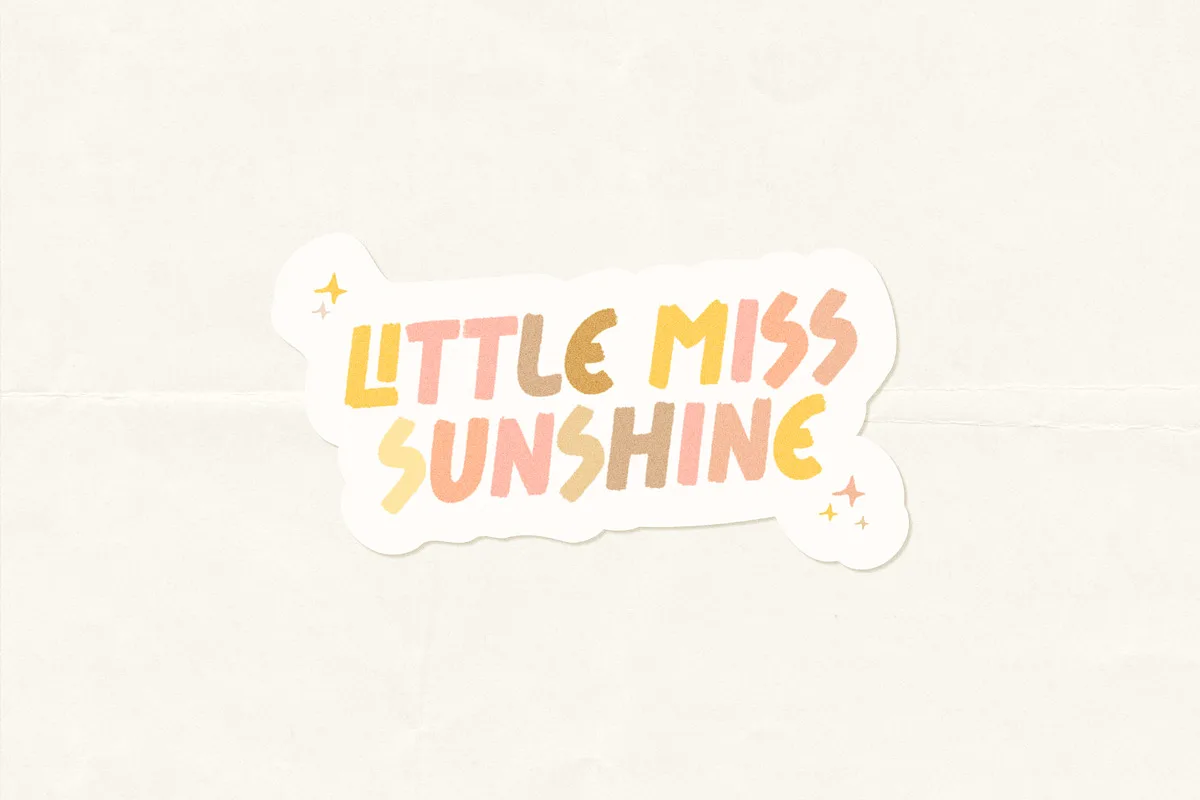
Sweet, cute & expressive – Sweet Orange helps bring out the playfulness in your designs. Hand-painted with a touch of heartiness and imperfection, Sweet Orange is perfect for adding a humanist and friendly feel to your artwork. It is perfect for a wide range of designs, especially packaging, book covers, and social media.